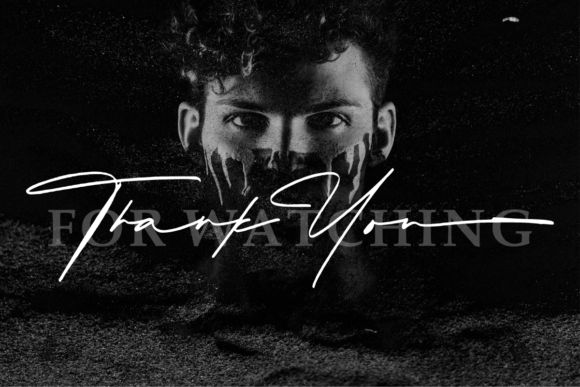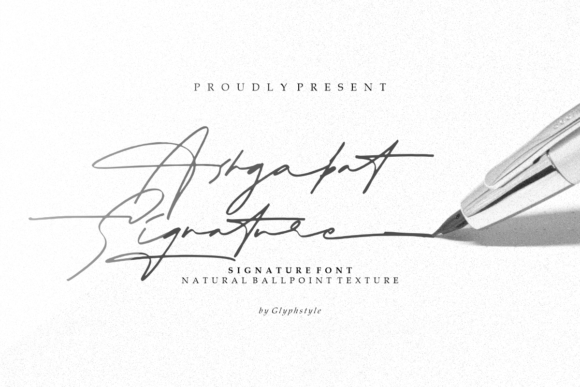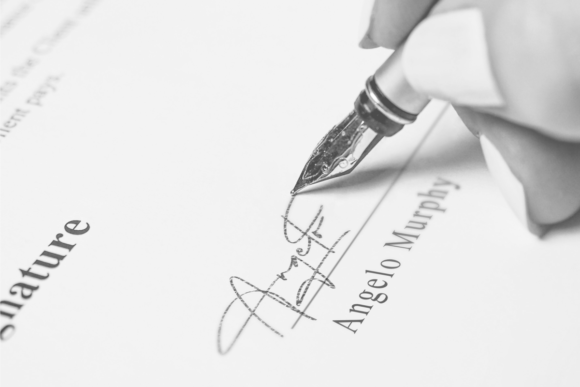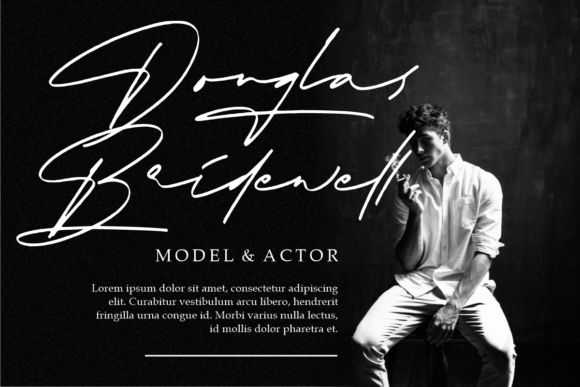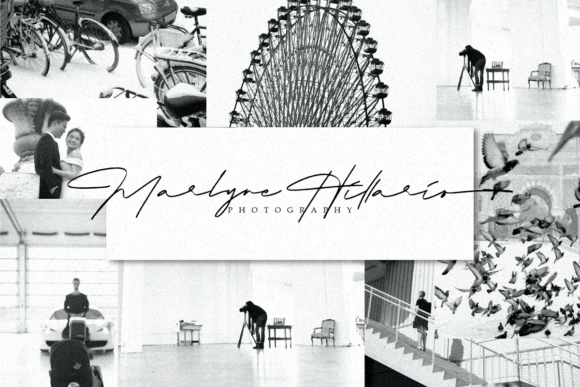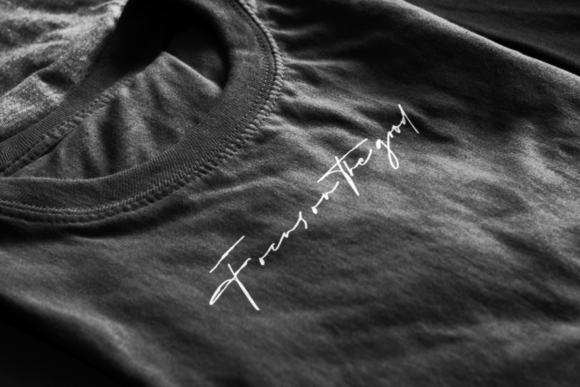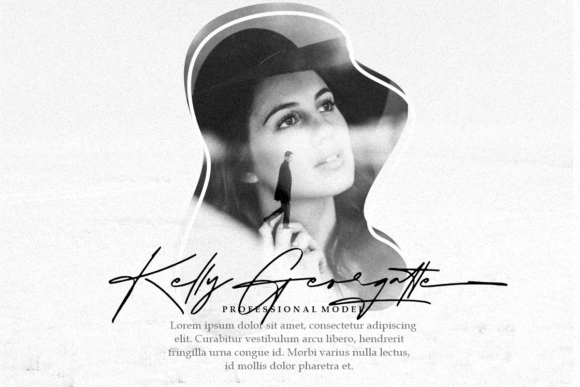
Ashgabat Natural Signature Font
About Ashgabat Natural Signature Font
Ashgabat Natural Signature feels equally charming and elegant. It looks stunning on wedding invitations, thank you cards, quotes, greeting cards, logos, business cards and every other design which needs a handwritten touch.